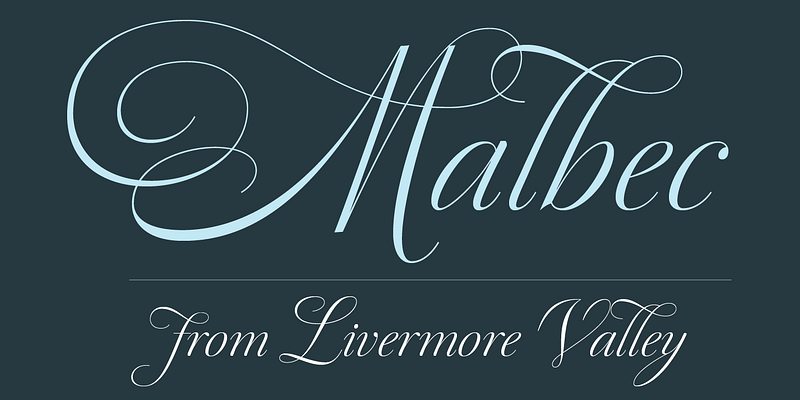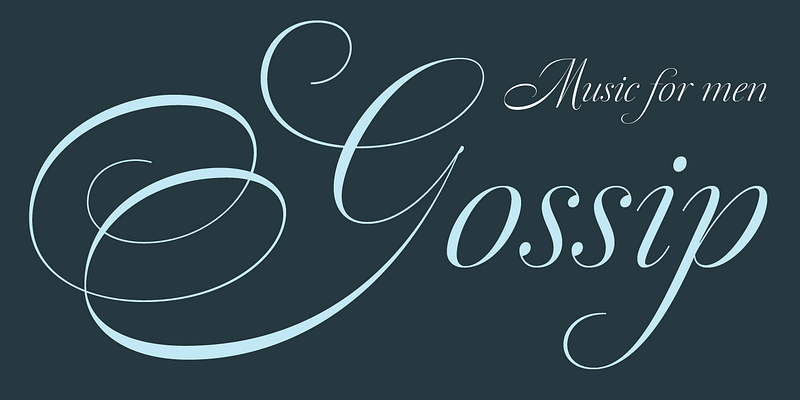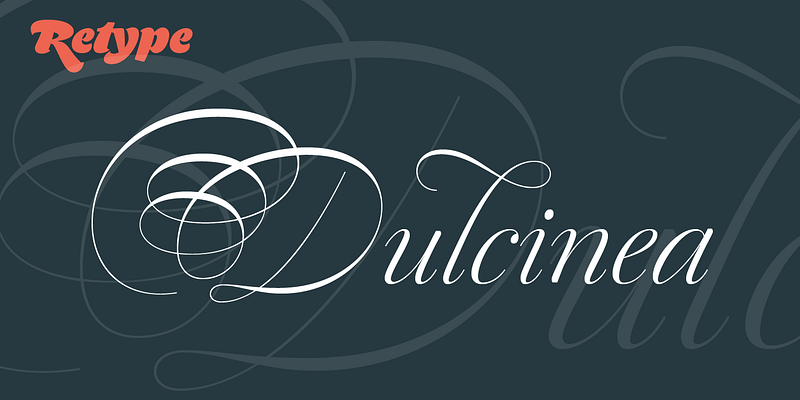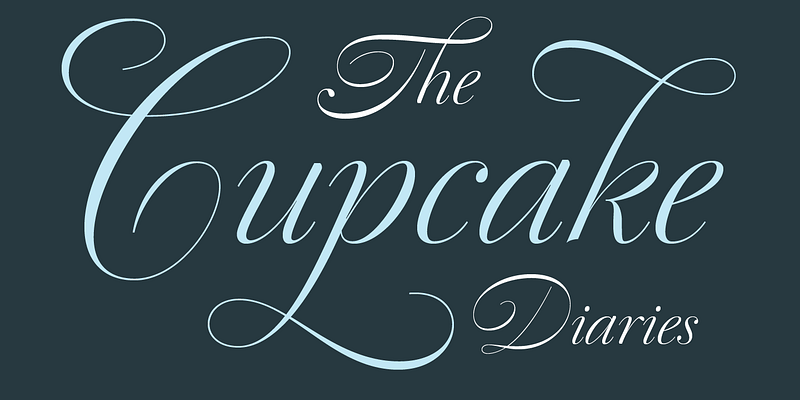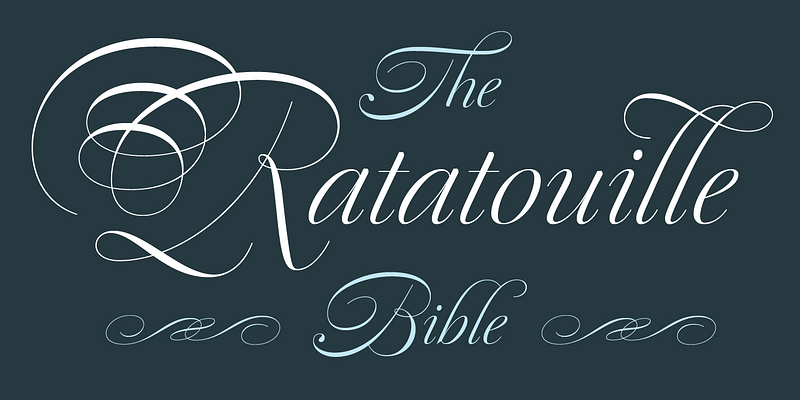
With Dulcinea, Ramiro Espinoza explores Spanish baroque calligraphy’s most extreme tendencies, exemplified in the work of Pedro Díaz Morante and Juan Claudio Aznar de Polanco. With their plentiful calligraphic flourishes, the alphabets of these writing masters represented a marked break with the harmonic, angular Cancellaresca style dominant during the Renaissance.
In naming this script, Espinoza pays homage to Dulcinea del Toboso, the fictional heroine of Miguel de Cervantes’s seventeenth-century classic, “Don Quixote.” Far from a mere revival, Dulcinea deftly combines quirks from the period with the playful spirit of the original. An array of delicate ligatures, swashes, and alternate characters enhance opportunities for sophisticated typography. Retype, 2018.
Retype Foundry is a two-person independent digital type foundry based in The Hague. Ramiro Espinoza, who founded the company in 2007, manages it in close collaboration with his partner, editorial designer Paula Mastrangelo. Retype’s catalogue reflects the pair’s interest in editorial design and a keen familiarity with Dutch type history.